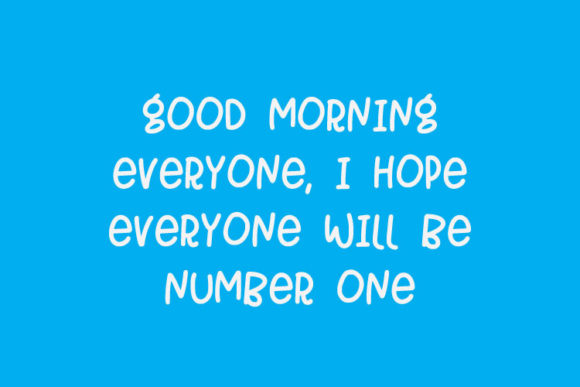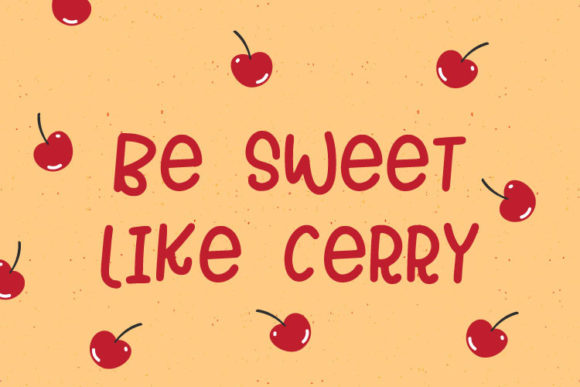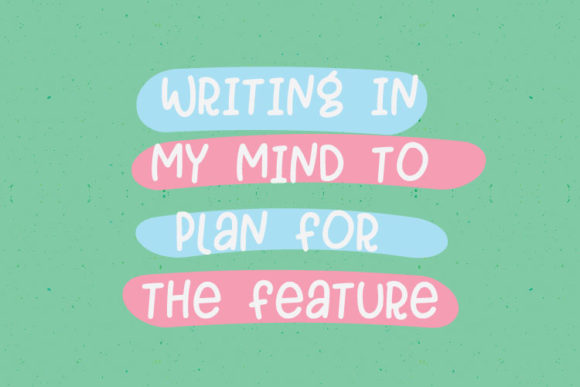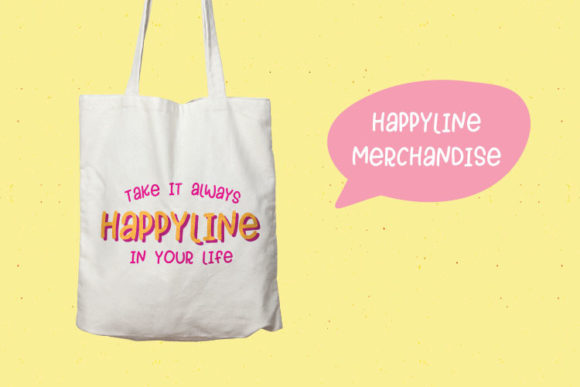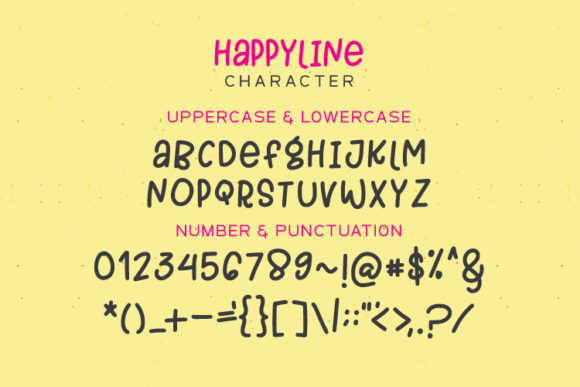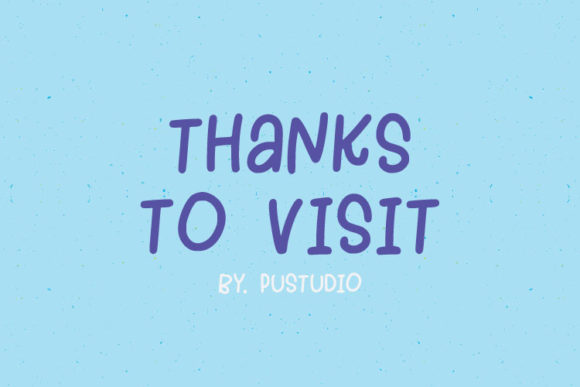
Introducing Happyline Font: The Perfect Handwritten Font for Chalkboard Quotes and Teaching Materials
Are you a designer, crafter, or educator looking for a font that can add a personal and realistic touch to your designs? Look no further than Happyline Font! This beautiful handwritten font is perfect for creating chalkboard quotes, teaching materials, and other designs that require a authentic, hand-written look.
What is Happyline Font?
Happyline Font is a carefully crafted handwritten font that mimics the look and feel of chalkboard writing. Its unique and authentic design makes it perfect for a variety of uses, from educational materials to social media graphics, and even craft projects. With Happyline Font, you can add a personal touch to your designs and make them stand out from the crowd.
Key Features of Happyline Font
- Authentic Handwritten Look: Happyline Font has a genuine handwritten look that will add a personal touch to your designs.
- Chalkboard-Inspired: The font’s chalkboard-inspired design makes it perfect for creating quotes, posters, and other materials that require a classic, nostalgic look.
- Easy to Read: Despite its handwritten nature, Happyline Font is easy to read, making it perfect for teaching materials, educational resources, and other designs where legibility is important.
- Versatile: Happyline Font can be used for a wide range of projects, from digital designs to print materials, and even craft projects.
Uses for Happyline Font
Happyline Font is a versatile font that can be used for a variety of projects, including:
- Chalkboard Quotes: Create beautiful chalkboard quotes for social media, blogs, or even physical chalkboards.
- Teaching Materials: Use Happyline Font to create engaging and educational materials, such as worksheets, posters, and presentations.
- Craft Projects: Add a personal touch to your craft projects, such as handmade cards, gift tags, and other paper crafts.
- Digital Designs: Use Happyline Font in digital designs, such as social media graphics, blog posts, and even video scripts.
Why Choose Happyline Font?
- Unique and Authentic: Happyline Font has a unique and authentic design that will set your designs apart from the crowd.
- High-Quality: Happyline Font is a high-quality font that is designed to be clear and legible, even at small sizes.